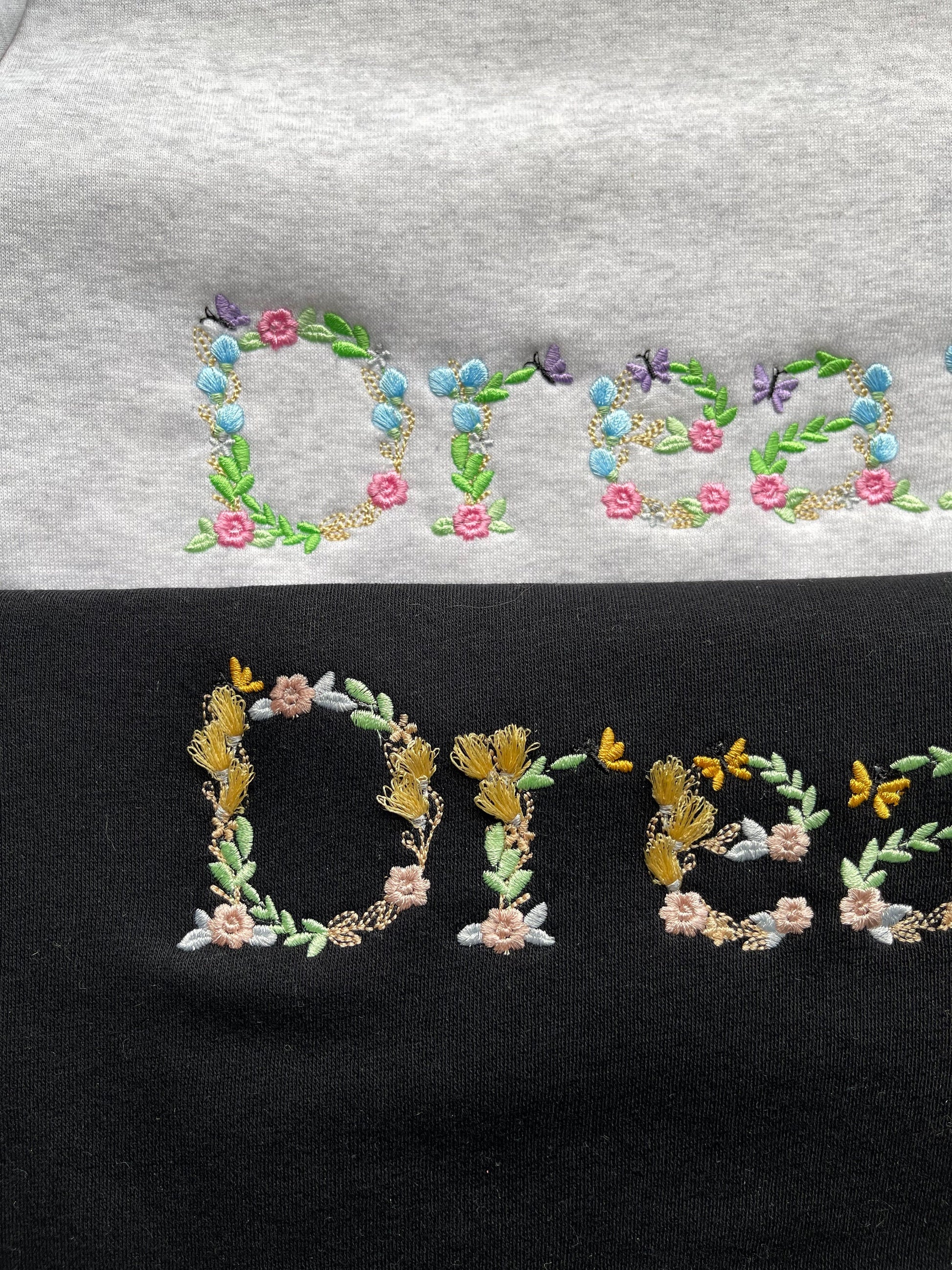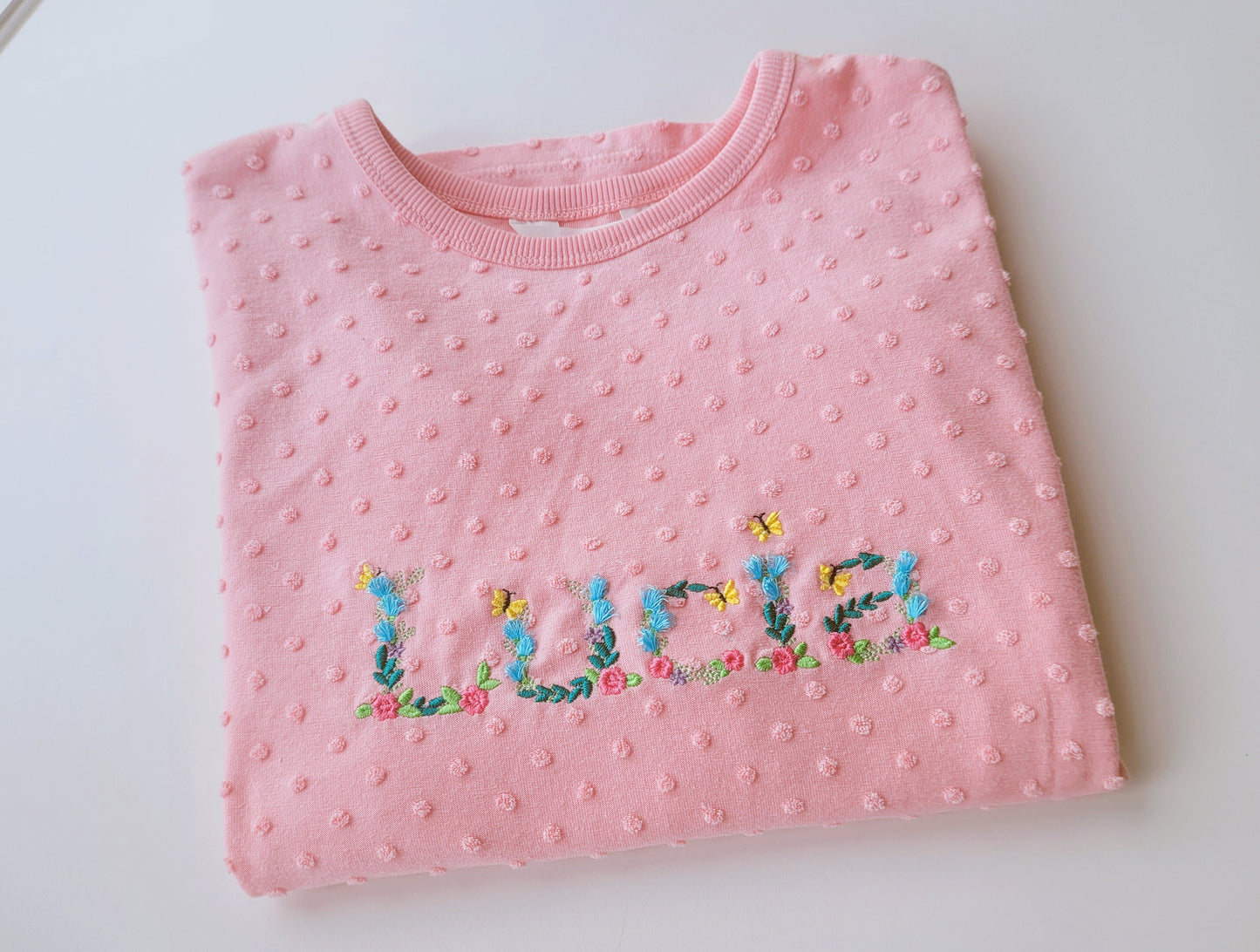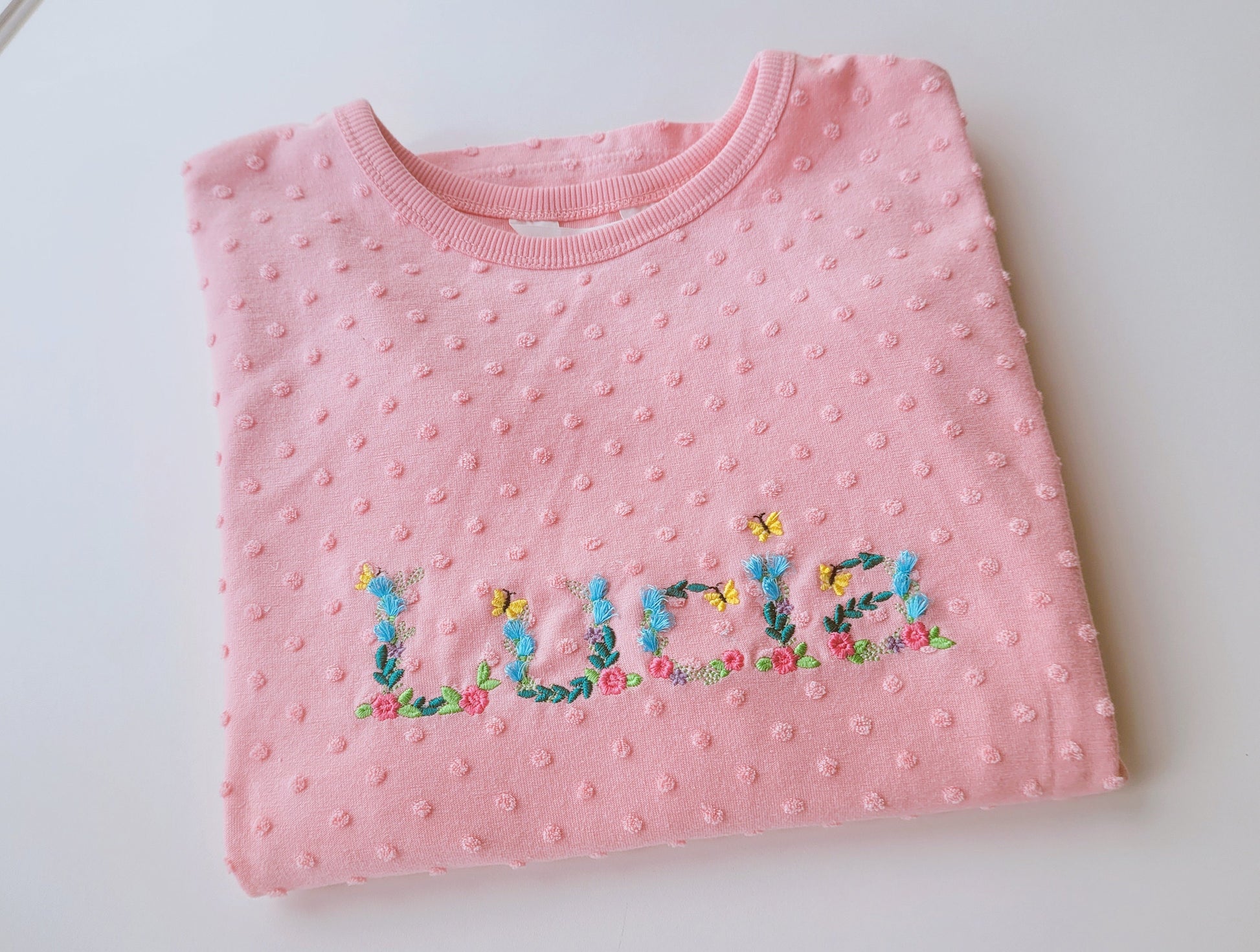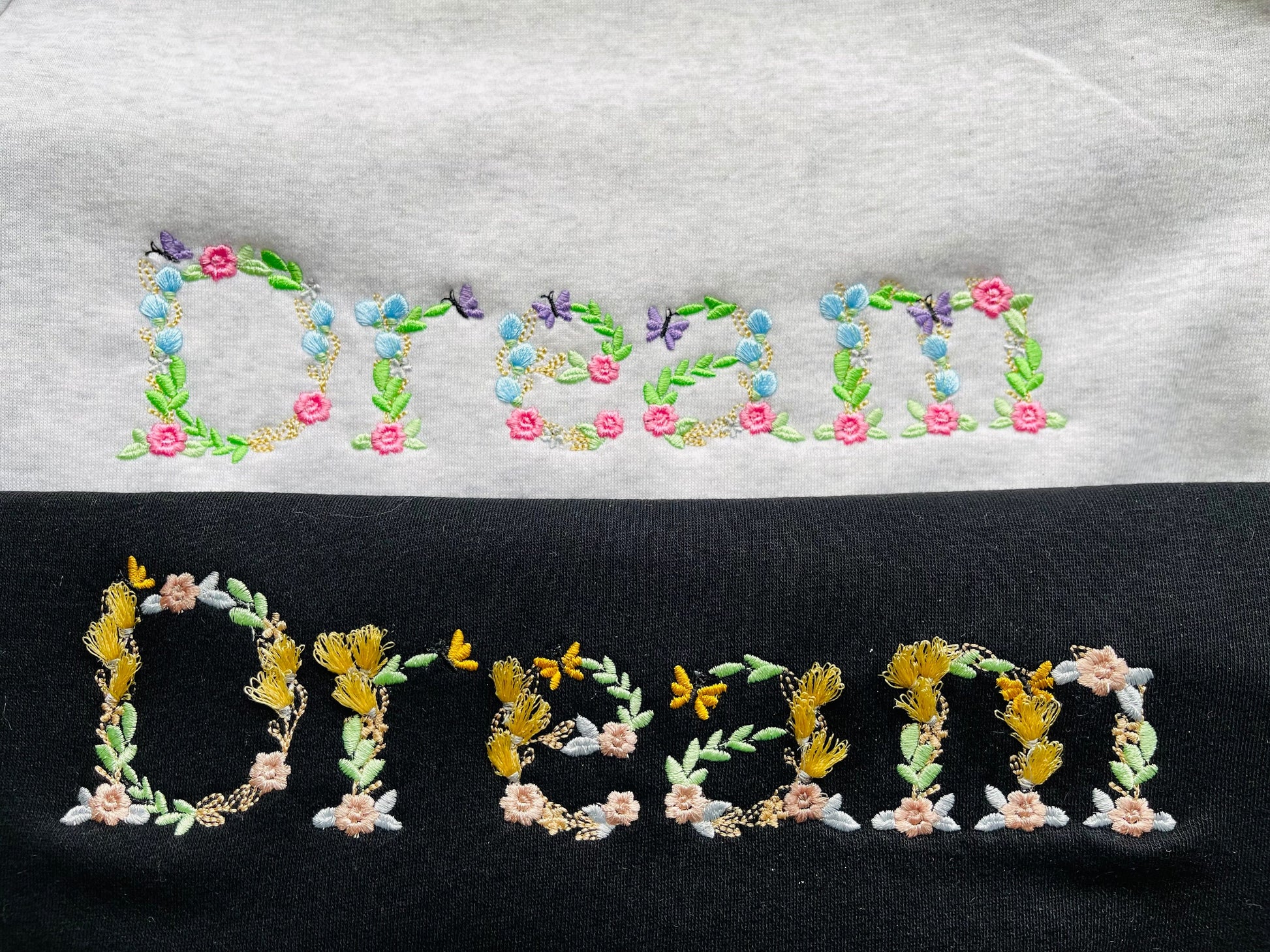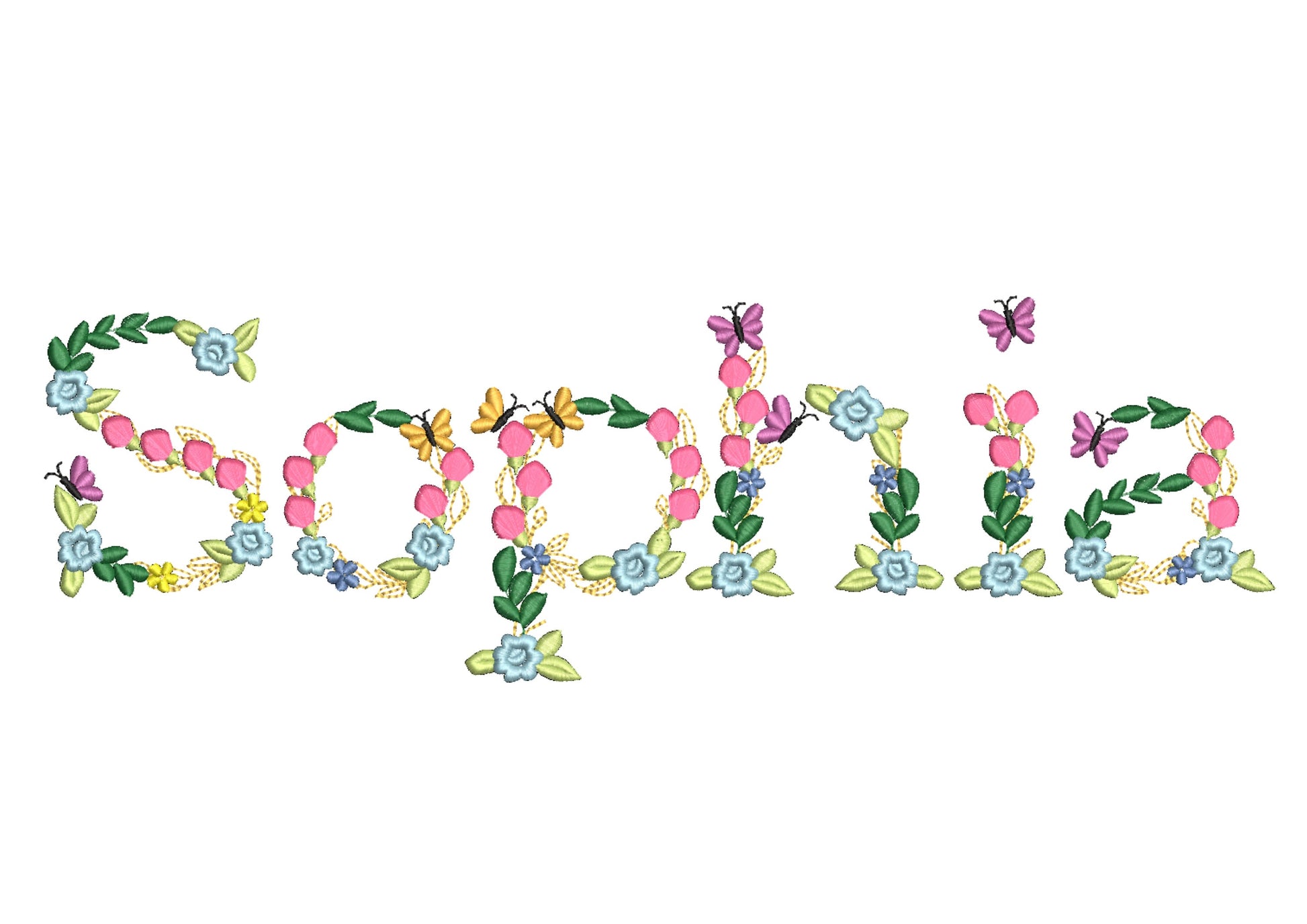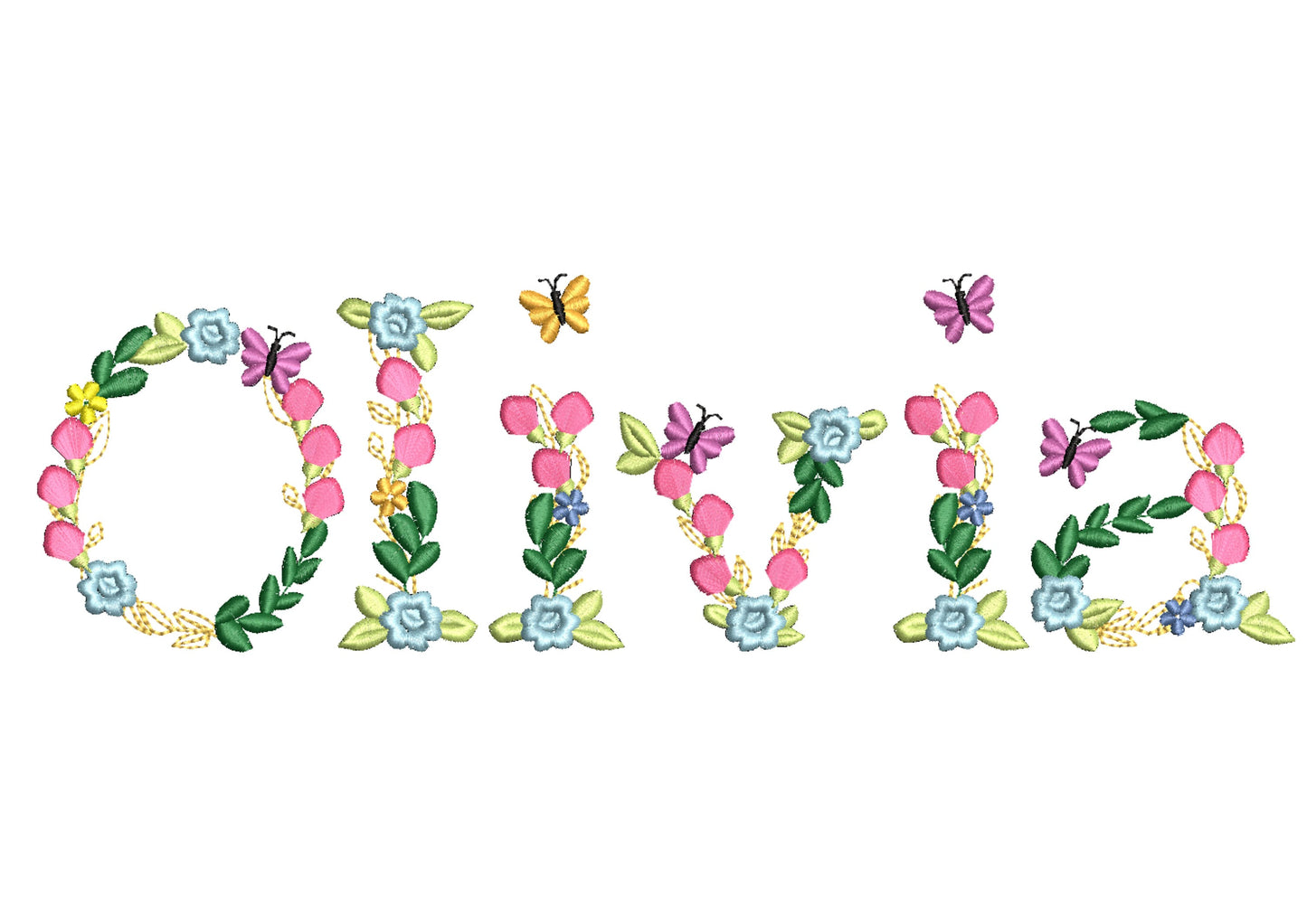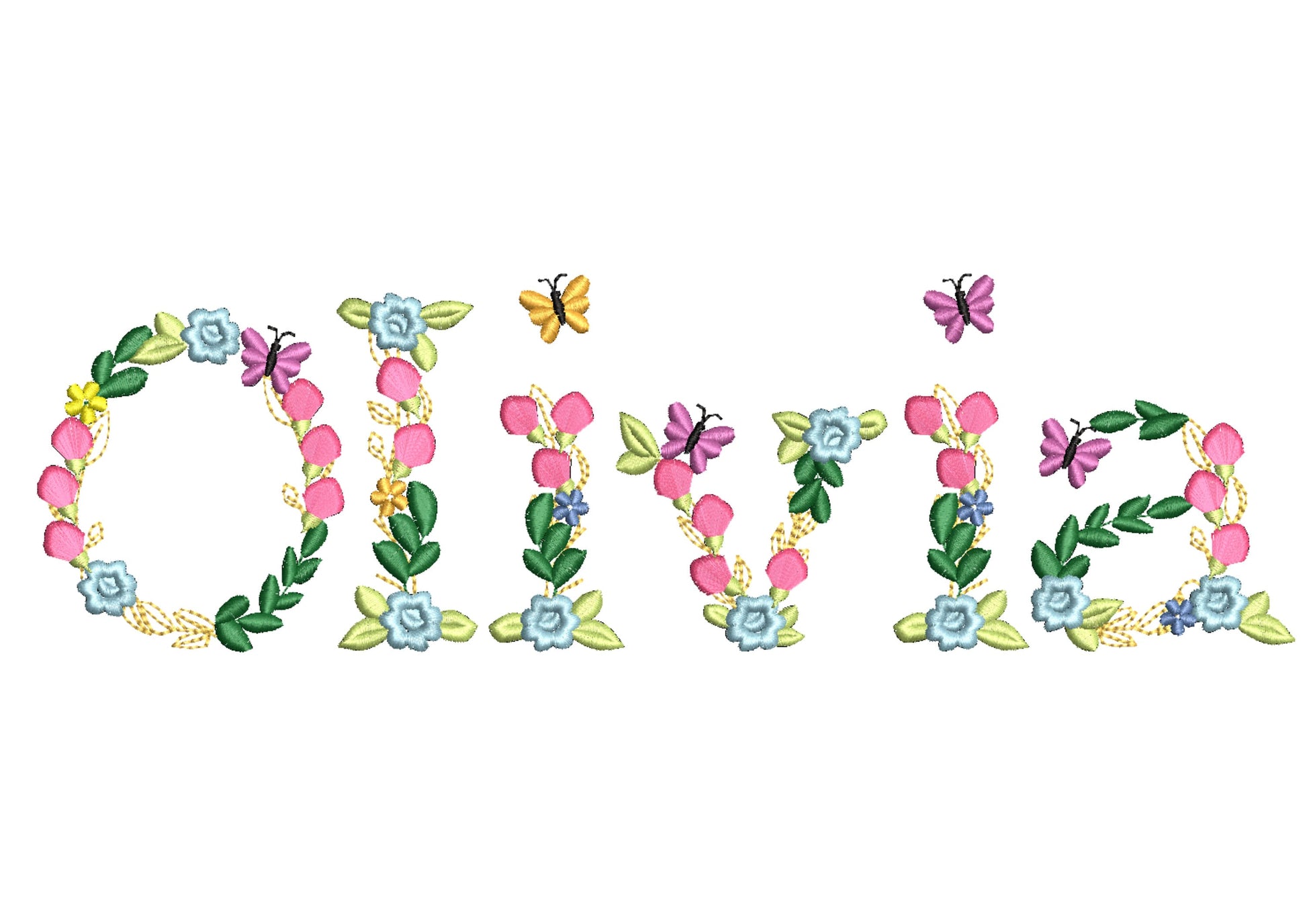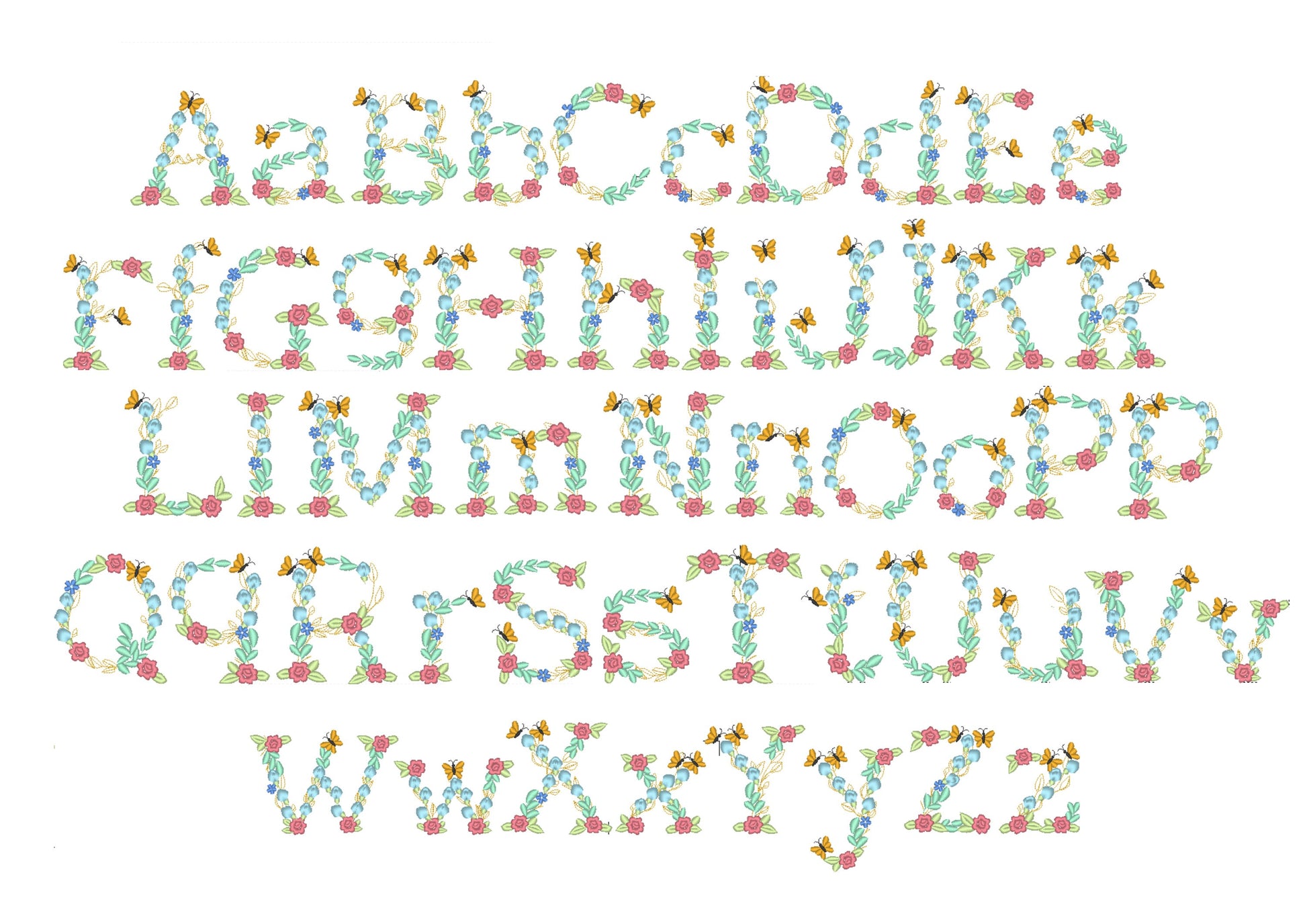
Fringed Light Rose Floral Font
Uppercase and lowercase letters, comma and period in six sizes: 1.5, 2, 2.3, 2.6, 3 and 3.5 inches.
- Fringed light rose floral font
- Uppercase and lowercase letters
- 6 sizes, 1.5 to 3.5 in